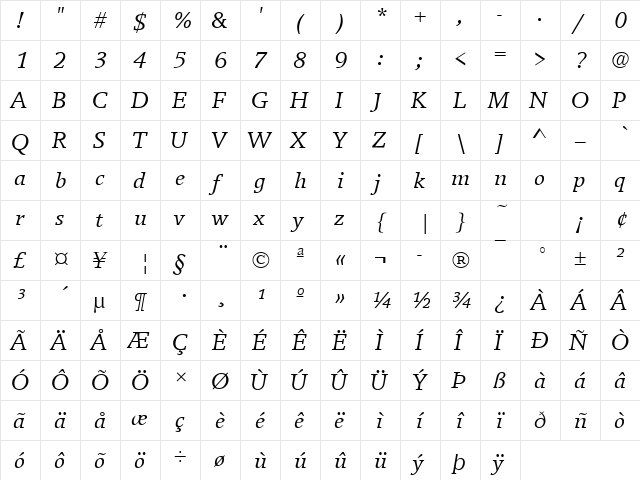
BreughelT Italic Font Preview
BreughelT Italic
BreughelT Italic Font Details
Design Context for BreughelT Typeface
BreughelT takes a measured approach to typography — its balanced proportions and neutral character make it a reliable workhorse for both digital and print work. The slanted form adds forward momentum and visual energy.